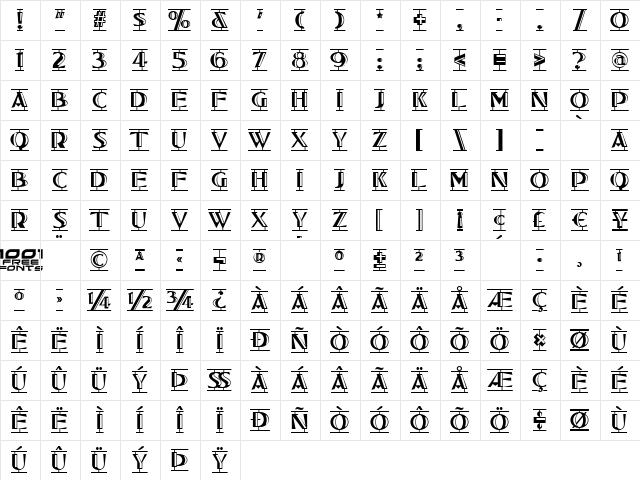
Tucson Two Step NF Regular
| Foundry | Nick's Fonts |
| Designer | Nick Curtis |
Design Context for Tucson Two Step NF Typeface
Tucson Two Step NF is a composed and adaptable typeface that performs quietly and consistently across a wide range of design contexts.